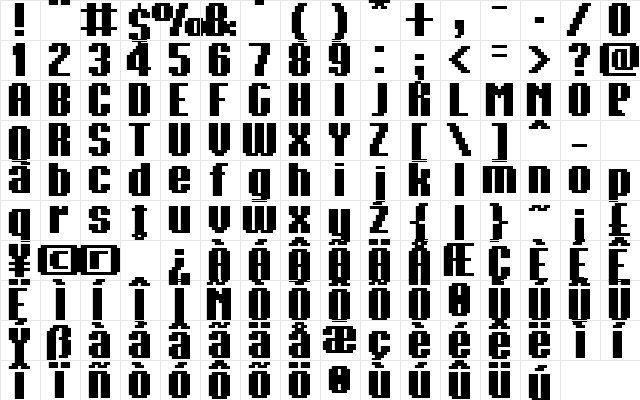
FFF Metropolis Regular
Design Context for FFF Metropolis Typeface
FFF Metropolis takes a measured approach to typography — its balanced proportions and neutral character make it a reliable workhorse for both digital and print work.
Pro Tip: Use FFF Metropolis in both headline and body roles to test its range before committing to a single application.